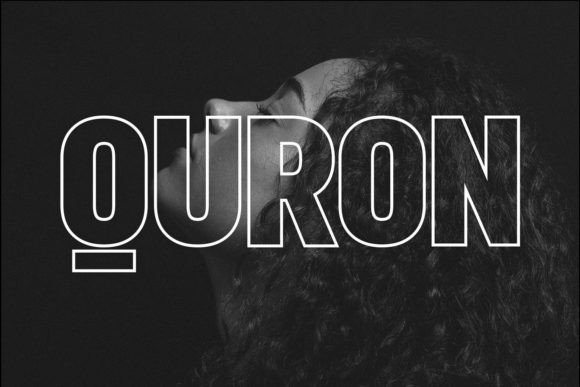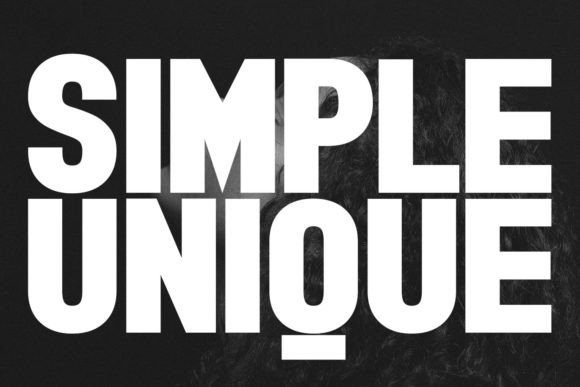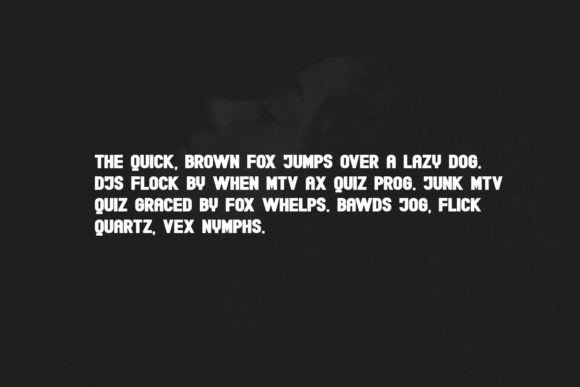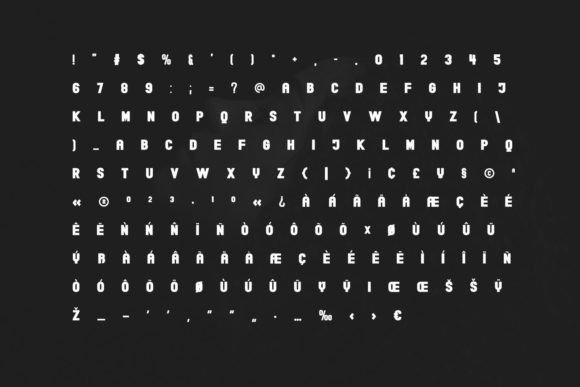
Introduction to Quron Font
Quron is a beautiful modern display font.
Quron carries a powerful, unique, bold, artistic, and social character line with a premium finish, giving a new impression The font is perfectly crafted for logos, magazines, advertisements, websites, headlines, titles, captions, UIs, games, apps, films, apparel, and more.